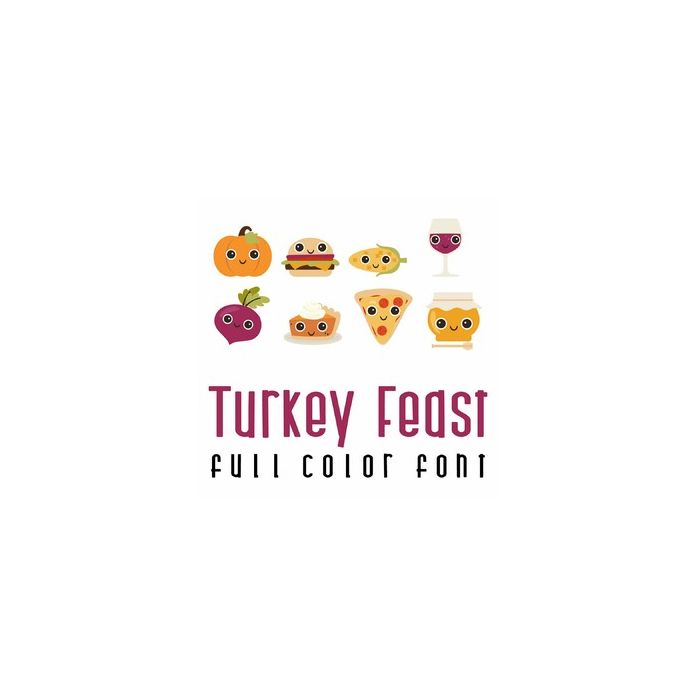
This adorable full color doodlebat font features adorable kawaii style food perfect for a Thanksgiving feast. Perfect for cards, crafts, gifts, decor, scrap book pages, planner stickers and more!